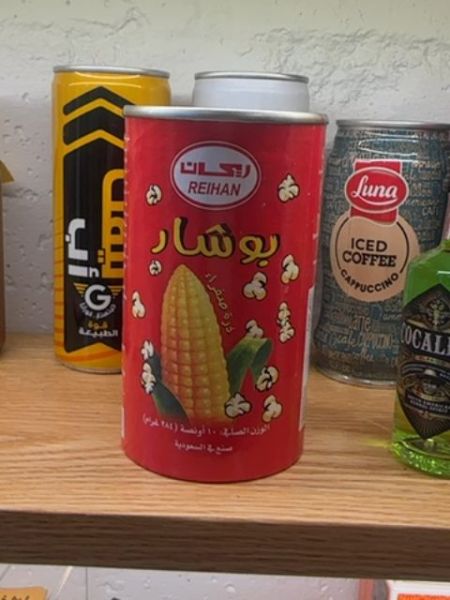
Reihan
Popcorn product, likely used for snacking or cooking.
The typography predominantly features Arabic script, mixing bold styles with more traditional serif fonts. The brand name 'Reihan' is highlighted in a distinct, rounded font within an oval label, providing a modern yet traditional aesthetic. The use of contrasting colors for text and background enhances readability.
The packaging is a cylindrical red canister with a vibrant design. It features an image of corn with popped kernels, indicating the core ingredient. The overall design is eye-catching and suggests a food product.
- The product features branding in Arabic text.
- It includes the image of corn and popcorn, emphasizing its use.
- The packaging is colorful, making it stand out on the shelf.